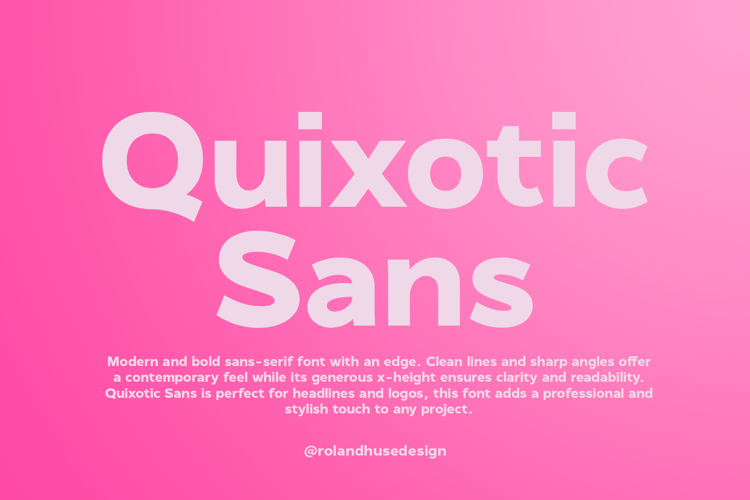
Quixotic Sans Bold Font
Modern and bold sans-serif font with an edge. Clean lines and sharp angles offer a contemporary feel while its generous x-height ensures clarity and readability. Quixotic Sans is perfect for headlines and logos, this font adds a professional and stylish touch to any project.
It covers Western, Central and South Eastern European accented characters, basic punctuations, symbols, currencies and standard ligatures such as fi, fl, ff, fyi, ffl and tt. There are stylistic alternates for lowercase "a" and "y".